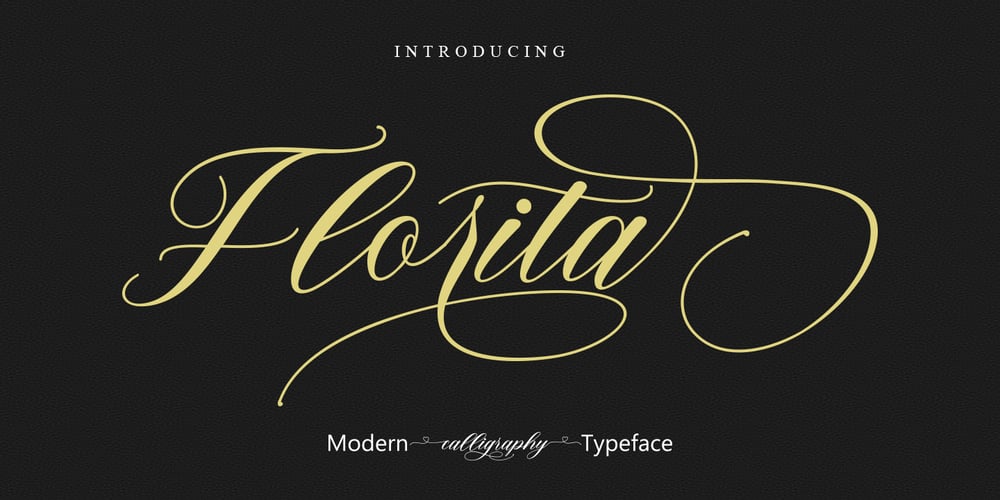
Florita
Florita font
Florita Font Family was designed by Munawir and published by Mightype. Florita contains 1 styles and family package options. Florita Script is a modern calligraphic font with the current handwriting style. This font is perfect for branding, wedding invites, magazines, mugs, business cards, quotes, posters, and more. Florita Script is equipped with 739 glyphs and by having many of these glyphs you will be able to choose the letters according to your likes. There are lots of variations and options for each letter, so you can customize it to your design choices. You need a program that supports OpenType features such as Adobe Photoshop Cs / Adobe Photoshop CC, Adobe Illustrator CS / Adobe Illustrator CC, Adobe Indesign and Corel Draw or one of the many programs that support OpenType. If you do not have a program that supports OpenType, you can access all the alternate glyphs using Font Book (Mac) or Character Map (Windows). If you have any question, do not hesitate to contact me by email mightype89@gmail.com Thanks and happy designing.